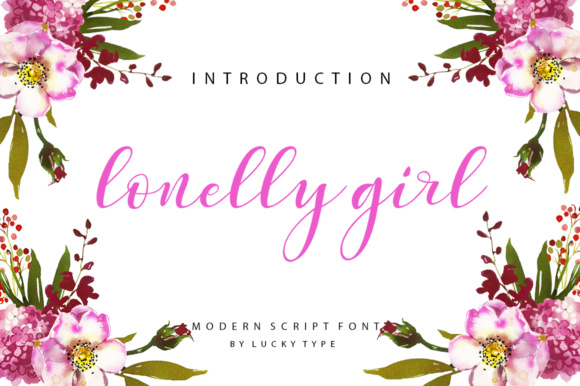
Introducing the Lonelly Girl Font: A Captivating Script for Timeless Creations
Journey into the realm of elegance and sophistication with the Lonelly Girl Font, a stunning script adorned with an irregular baseline. Crafted with meticulous attention to detail by the renowned luckytype.font, this font exudes a trendy and feminine charm that will elevate your designs to new heights.
Immerse yourself in a world of creativity with Lonelly Girl, the perfect companion for expressing your individuality and style. Its enchanting allure effortlessly enhances wedding invitations, thank-you cards, heartfelt quotes, and greeting cards, adding a touch of magic to every sentiment you share.
Let Lonelly Girl take center stage in your logos and business cards, leaving an indelible mark on your audience. Its unique character adds a touch of sophistication that sets your brand apart, ensuring you stand out in the competitive landscape.
With Lonelly Girl, your imagination knows no bounds. Whether you're crafting stunning visuals for social media or designing captivating marketing materials, this font effortlessly adds a touch of elegance to every project.
Explore the endless possibilities of Lonelly Girl today and elevate your designs with its timeless beauty. Seize the opportunity to create stunning masterpieces that resonate with your audience and leave a lasting impression.